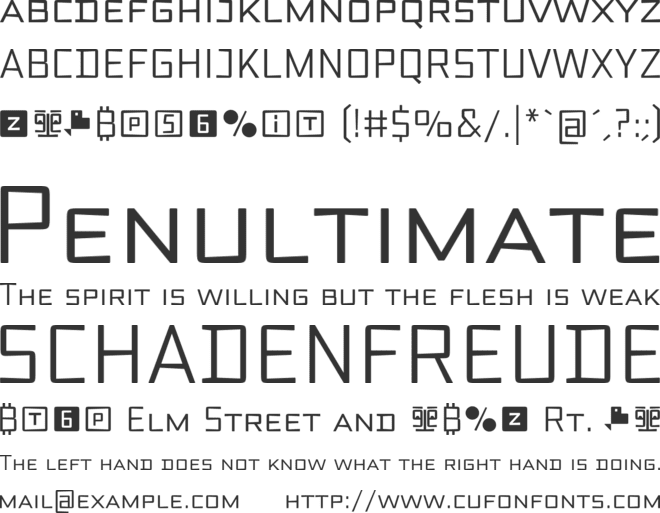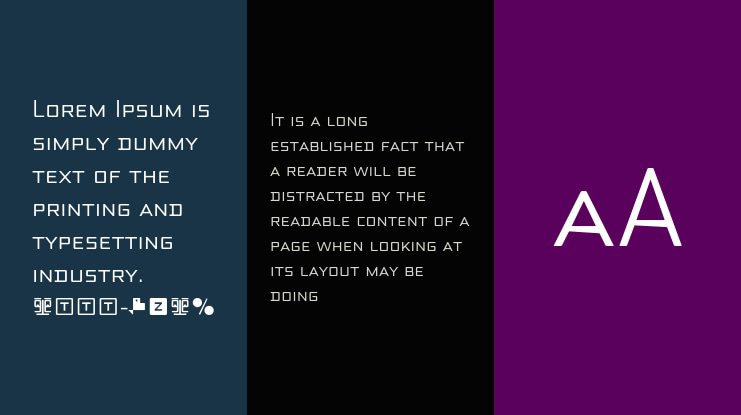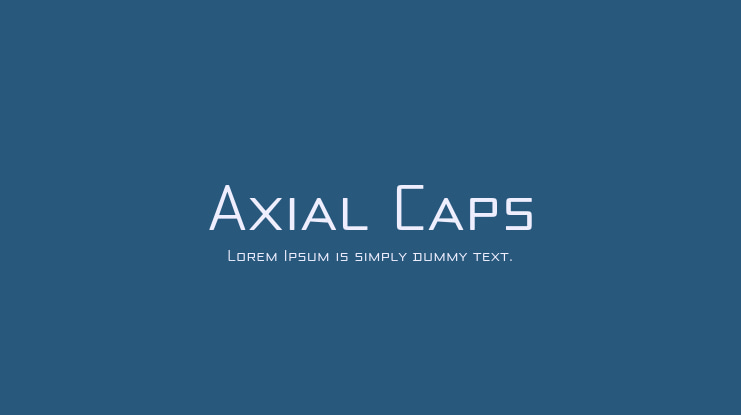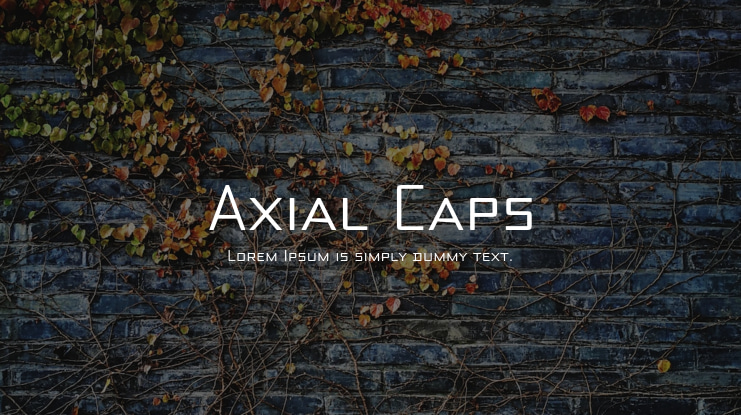
Axial Caps Font Family
Sans serif capitals typefaces represent a contemporary and rounded evolution where the letters are constructed on an axial axis.
Trapezoidal counter-shapes and joints with reduced stems correct optical effects in small sizes, enhancing legibility. In large sizes, the typeface stands out due to its original shapes.